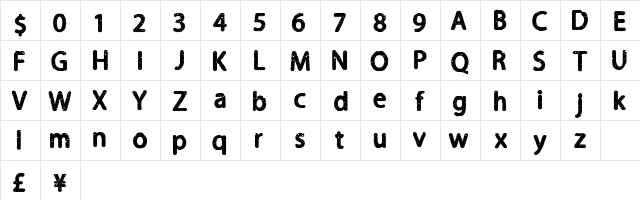
GreatCamp Regular
| Foundry | Xerographer Fonts |
| Designer | Xerographer Fonts Max Infeld |
Design Context for GreatCamp Typeface
GreatCamp takes a measured approach to typography — its balanced proportions and neutral character make it a reliable workhorse for both digital and print work.